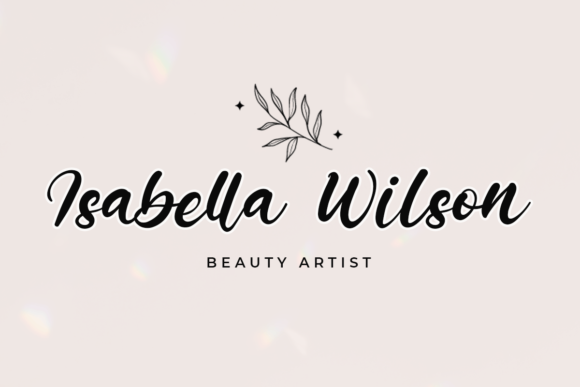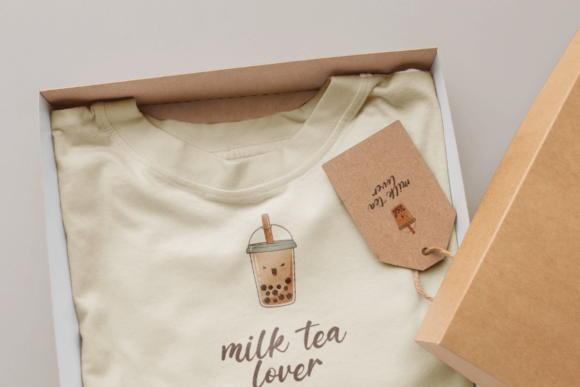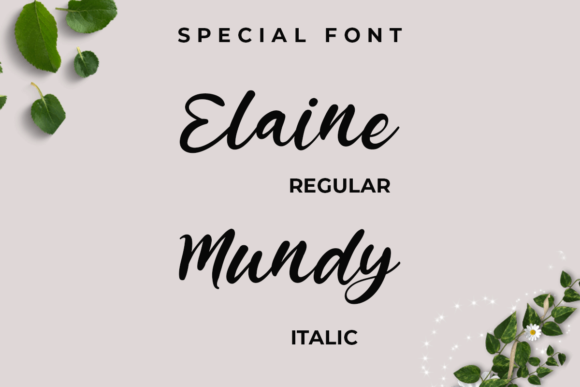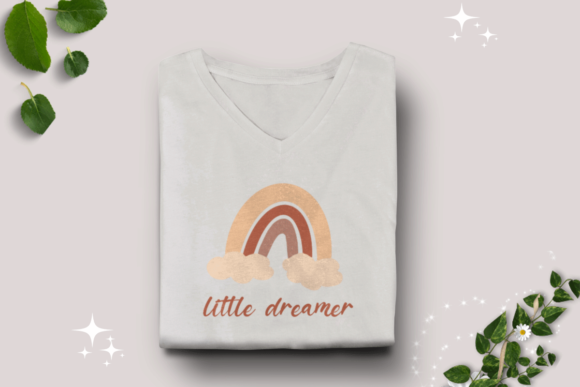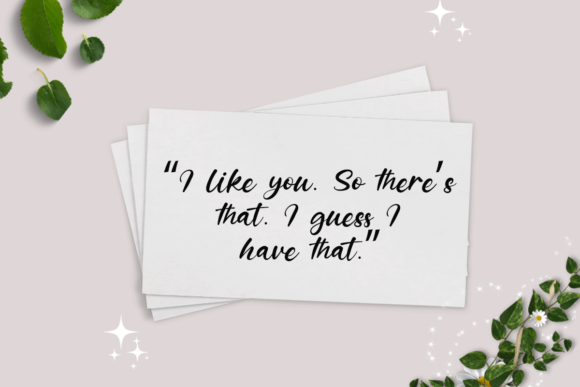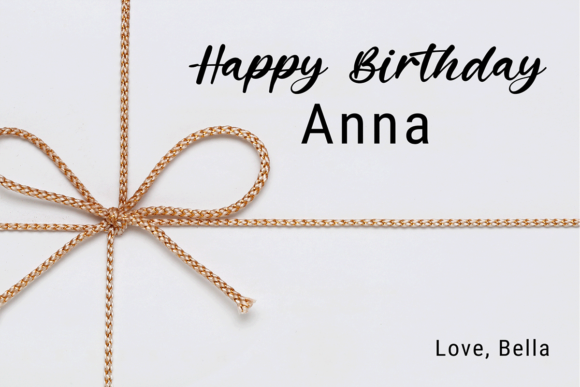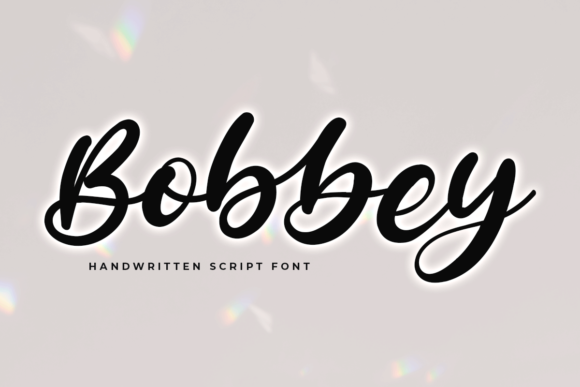
Bobbey Font: The Ultimate Choice for Creative Designs
Are you a designer or crafter looking for a unique and bold font to add a personalized touch to your creations? Look no further than the Bobbey Font! This quirky script font is perfect for making a statement on wedding invitations, thank you cards, quotes, greeting cards, logos, business cards, and more.
What Makes Bobbey Font So Special?
Bobbey Font is a bold and quirky script font that stands out from the rest. Its unique design makes it perfect for adding a customized touch to any design project. Whether you’re creating wedding invitations, greeting cards, or logos, Bobbey Font is sure to make your designs pop.
Bobbey Font is versatile and can be used on a variety of creative projects, including:
• Wedding invitations: Make your wedding invitations truly special with Bobbey Font.
• Thank you cards: Add a personal touch to your thank you cards with this beautiful font.
• Quotes: Use Bobbey Font to create stunning quote graphics for social media or blogs.
• Greeting cards: Create unique and personalized greeting cards for any occasion.
• Logos: Use Bobbey Font to create a bold and eye-catching logo for your business.
• Business cards: Stand out from the crowd with a custom business card featuring Bobbey Font.
One of the best features of Bobbey Font is that it is PUA (Private Use Area) encoded. This means that you can access all of the amazing glyphs and ligatures with ease. PUA encoding allows you to use the font’s special characters, such as swashes and alternates, without having to worry about complicated installation processes.
Why Choose Bobbey Font?
So, why should you choose Bobbey Font for your design projects? Here are just a few reasons:
• Unique design: Bobbey Font has a bold and quirky design that will make your projects stand out.
• Versatility: This font can be used on a wide range of creative projects, from wedding invitations to logos.
• Easy to use: Bobbey Font is PUA encoded, making it easy to access all of the font’s special characters.
• Customizable: With Bobbey Font, you can add a personalized touch to your designs.
Tips for Using Bobbey Font
Here are a few tips for using Bobbey Font in your design projects:
• Experiment with different sizes: Bobbey Font looks great in a variety of sizes, from large headings to smaller text.
• Pair with other fonts: Try pairing Bobbey Font with other fonts to create a unique and interesting design.
• Use the font’s special characters: Take advantage of Bobbey Font’s PUA encoding to add special characters and ligatures to your designs.
In conclusion, Bobbey Font is a bold and quirky script font that is perfect for designers and crafters looking to add a personalized touch to their creations. With its unique design, versatility, and ease of use, Bobbey Font is the ultimate choice for creative projects. Whether you’re creating wedding invitations, logos, or greeting cards, Bobbey Font is sure to make your designs stand out.